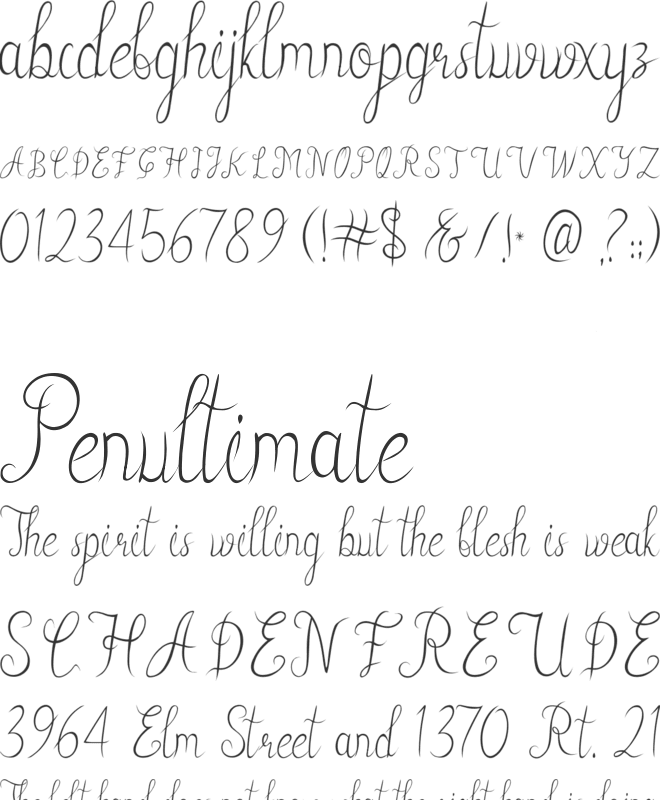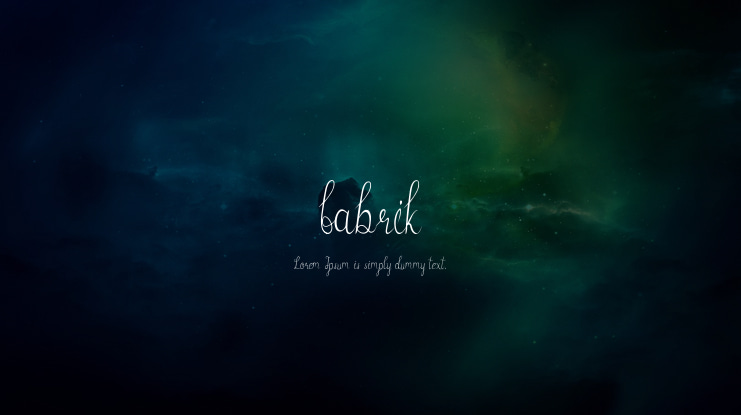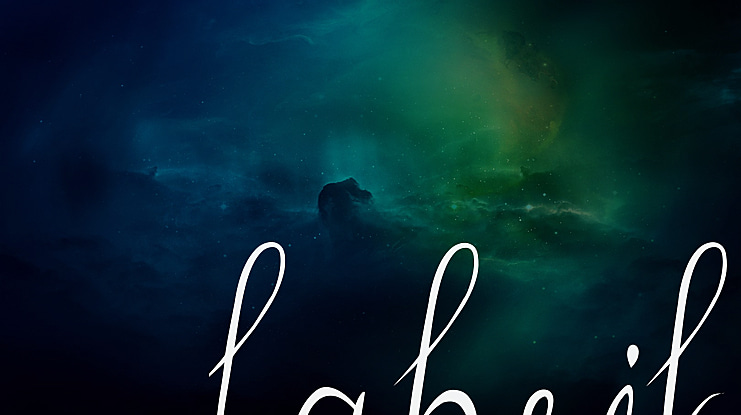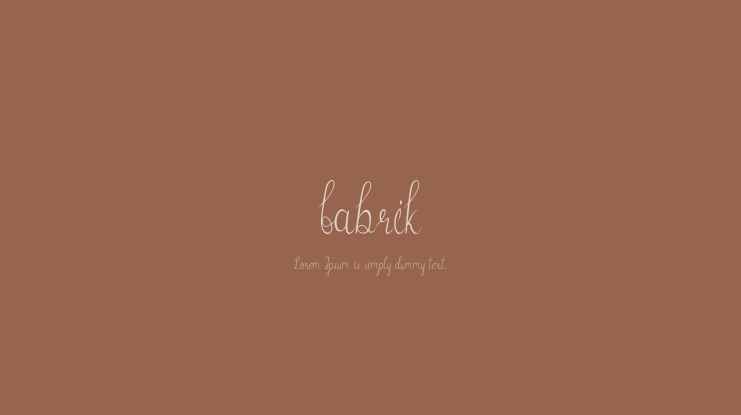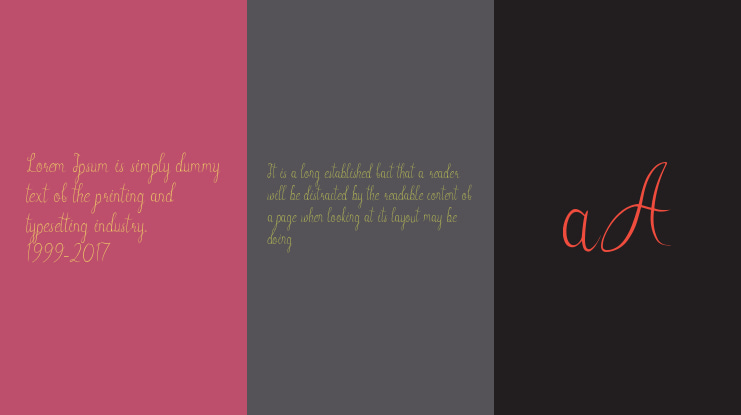
fabrik Font
Fabrik is a cute and casual handwritten font with an incredibly friendly feel. It features gorgeous swashes and ligatures that make this script incredibly versatile. Whether youre looking for fonts for Instagram or calligraphy scripts for DIY projects, Fabrik will turn any creative idea into a true piece of art!